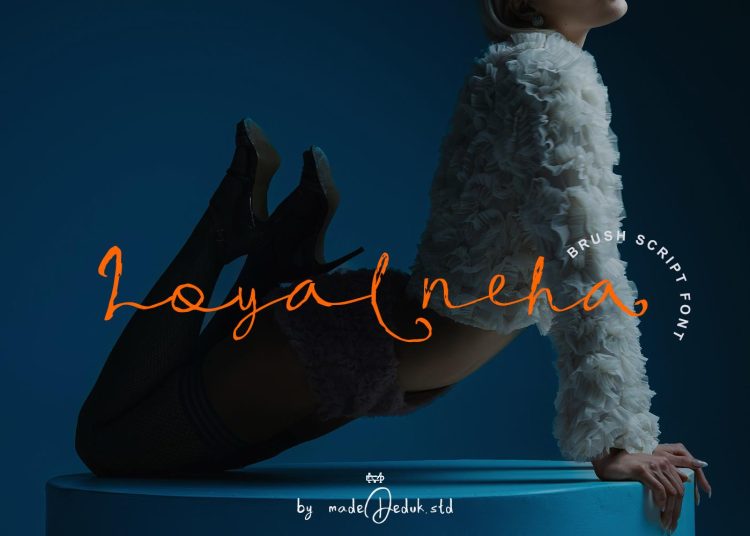
Loyalneha Script Font
Loyalneha Script Font is a realistic handwritten typeface designed to bring authenticity and charm to your designs. With a fluid, natural flow, it captures the essence of handwritten text, making it ideal for projects that require a personal, handcrafted touch. Its intricate ligatures and alternate characters contribute to the font’s unique appeal, adding to the sense of a truly hand-drawn style.
This font’s versatility makes it perfect for a wide range of applications, from branding and logos to social media posts, invitations, and greeting cards. Its smooth curves and organic design make it especially suitable for projects that aim to evoke a sense of warmth and personal connection. Whether you are designing a heartfelt message or an elegant logo, Loyalneha Script adds character and elegance to your work.
In addition to its natural handwriting appeal, Loyalneha Script offers an added layer of customization with its various ligatures and alternates. These features allow designers to create truly unique compositions, enhancing the overall look and feel of the typography. The font’s fluid style ensures that each letter flows seamlessly into the next, creating a cohesive and polished appearance for any project.